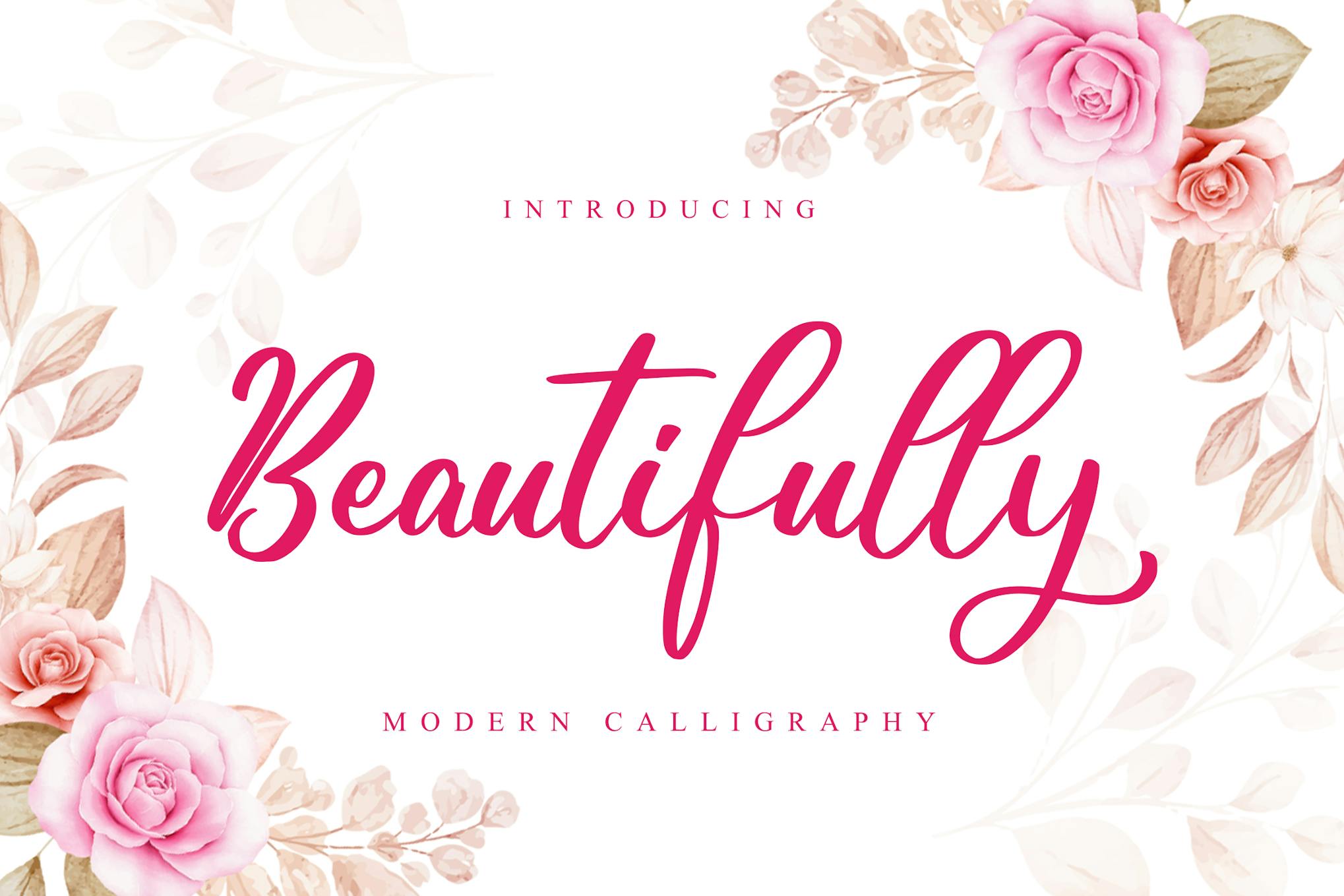
Beautifully - Wedding Font
The Beautifully - Wedding Font excels in stunning design applications including beautiful wedding invitations, gorgeous bridal branding, stunning ceremony logos, beautiful product packaging, gorgeous business cards, stunning portfolios, beautiful greeting cards, gorgeous social media graphics, stunning event signage, and beautiful marketing materials. Its beautiful script style makes it perfect for projects requiring stunning elegance that communicates beauty and establishes gorgeous brand positioning with audiences seeking beautiful wedding experiences and stunning sophistication.
What makes the Beautifully - Wedding Font truly exciting is its exceptional ability to capture the stunning beauty and gorgeous elegance of beautiful weddings through beautifully crafted letterforms. The font features flowing, beautiful strokes with stunning flourishes and gorgeous proportions that create a distinctly beautiful appearance. Each character displays remarkable attention to beautiful detail with stunning curves, gorgeous connections, and beautiful spacing that give text a beautifully gorgeous, hand-lettered quality. The font's beautiful character and stunning rhythm create an atmosphere of gorgeous elegance while maintaining beautiful sophistication and wedding authenticity.
The Beautifully - Wedding Font family typically includes regular weight with extensive character coverage, featuring uppercase and lowercase letters, numerals, punctuation marks, and international characters. The typeface often incorporates stylistic alternates, contextual ligatures, and beautiful swashes that enhance its signature beauty. These additional elements provide designers with creative flexibility to customize text appearance and achieve more natural-looking stunning handwriting that reflects the font's beautiful and gorgeous character.
This beautiful signature font distinguishes itself through its remarkable balance of stunning charm and sophisticated elegance. Unlike plain or unattractive fonts that lack beautiful appeal, Beautifully - Wedding Font embraces the power of gorgeous design to create beautiful connections with stunning wedding audiences. The font's beautiful character makes it essential for stunning wedding planners, beautiful brands, and gorgeous celebration businesses where creating beautiful wedding experiences and stunning memories is fundamental to success in gorgeous wedding markets.
The Beautifully - Wedding Font Free Download presents designers with an outstanding opportunity to incorporate stunning elegance into their beautiful wedding projects. From gorgeous wedding venues to beautiful celebration brands, this font delivers the stunning signature aesthetic that resonates with couples seeking beautiful and gorgeously sophisticated wedding experiences. Its gorgeous appeal ensures your designs communicate stunning beauty while the signature styling adds distinctive personality that reflects beautiful romance and stunning sophistication in any application requiring gorgeous typography solutions.
Beautifully is an incredibly beautiful script font. It has a classy, elegant and modern look that can be used for logos, branding, invitations, stationery, wedding designs, social media posts, and much more! What you get: OTF, TTF, WOFF Web fonts Ligatures, Swash, Alternates Letters, Numbers, punctuation Multilingual support